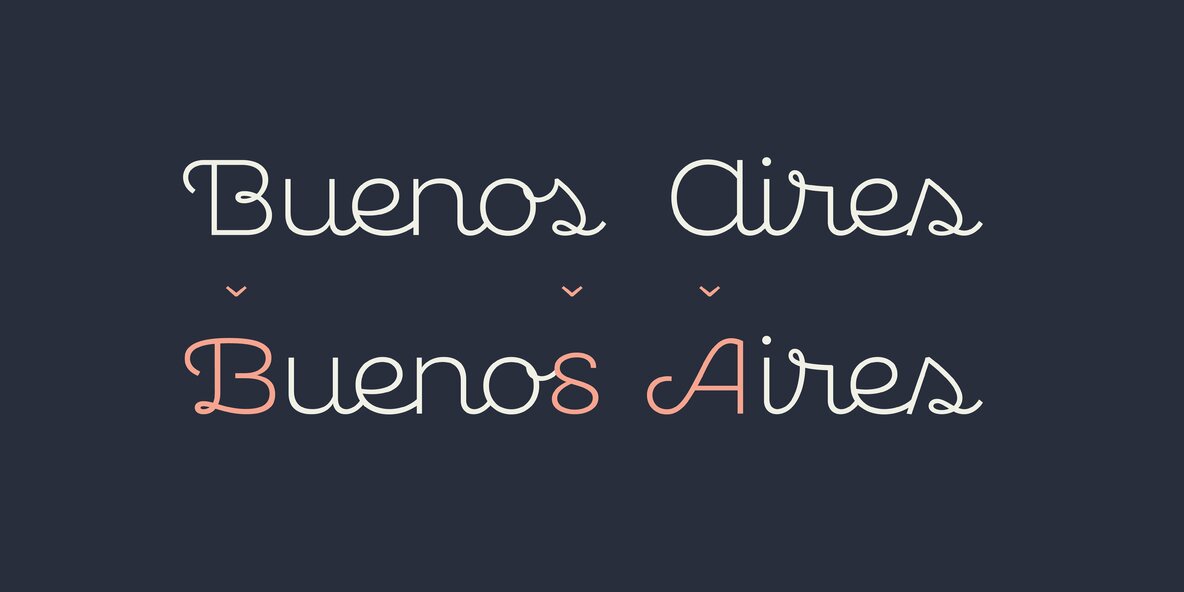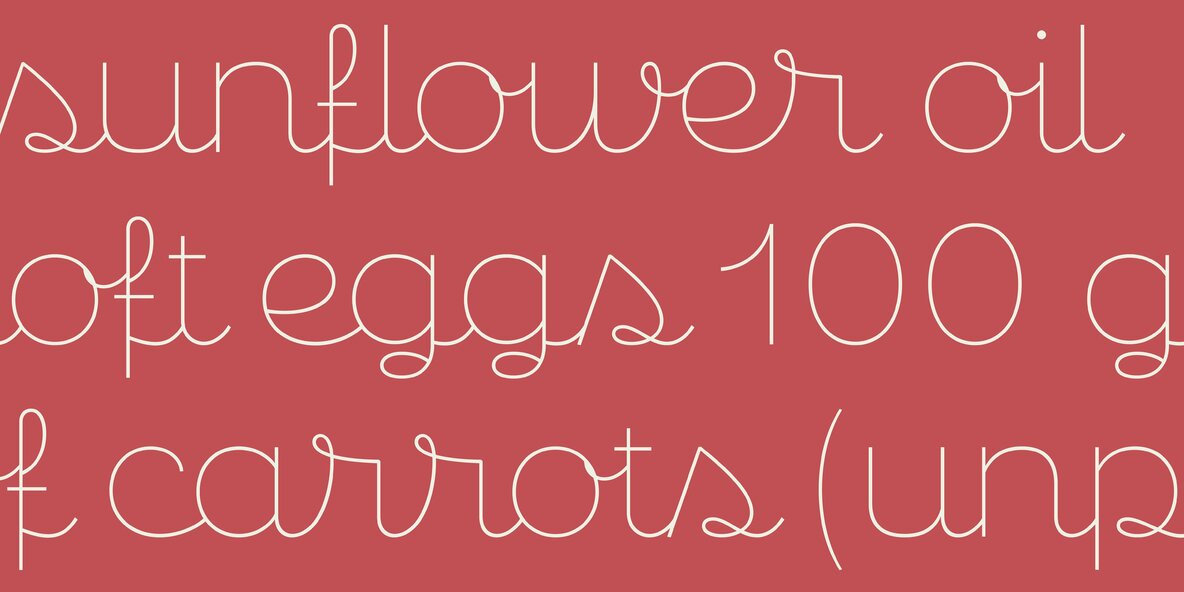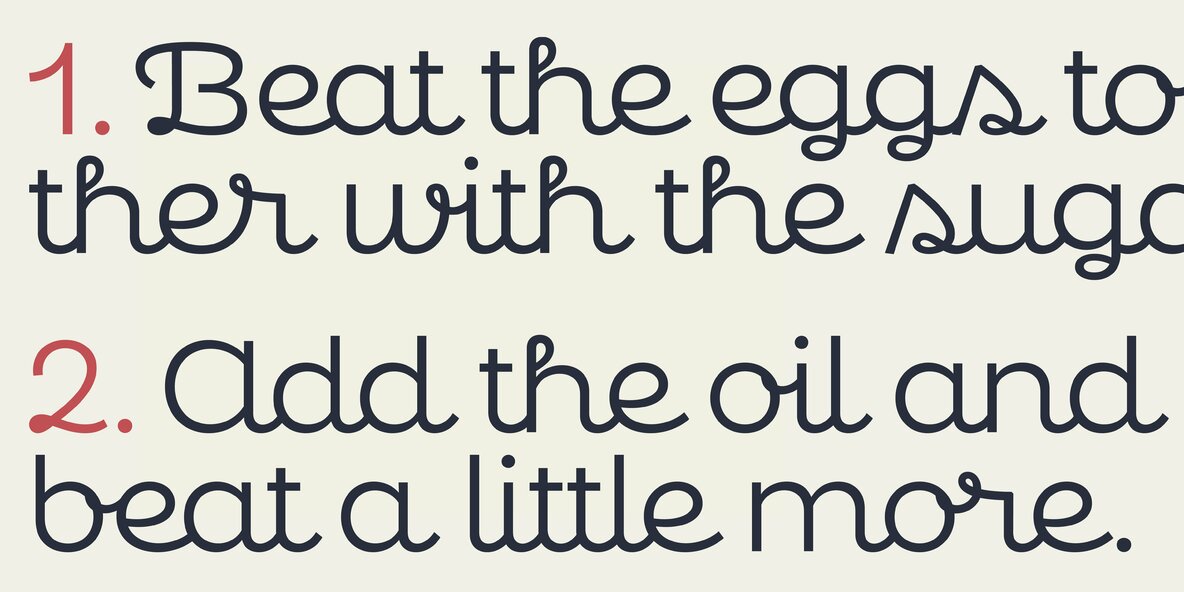
Confitería
Julieta says: ‘Confitería is the Spanish word for a shop where sweets and chocolates are made and sold, which sometimes has a tea room. And now Confitería is also a font that brings to mind lettering piped on delicate cakes ... sweet but never sickly.
This font captures something of that simple and innocent beauty of traditional confiterías, where good manners will never go out of fashion, menus are elegant and time comes to a standstill to make way for life’s little pleasures. A confitería is a perfect place to share sweet tidbits with a friend or date, eavesdrop on the conversation at the next table, read a book, or just people-watch from the window. I celebrated my last birthday at one.
There is one iconic confitería in Buenos Aires that I love more than the rest because, some 60 years ago, it put up its marvellous sign and never took it down. Walking by it is sure to bring a smile to your face. It’s big. Very big. And the lettering in its name is written in a timelessly beautiful vertical script – the most attractive I have ever seen.
I joined forces with Sol Matas – who worked with me to update the Montserrat font –to design this geometrical connected font with pleasant, even strokes. It is elegant and saccharine-free. And to top it off, it comes in several flavors.’